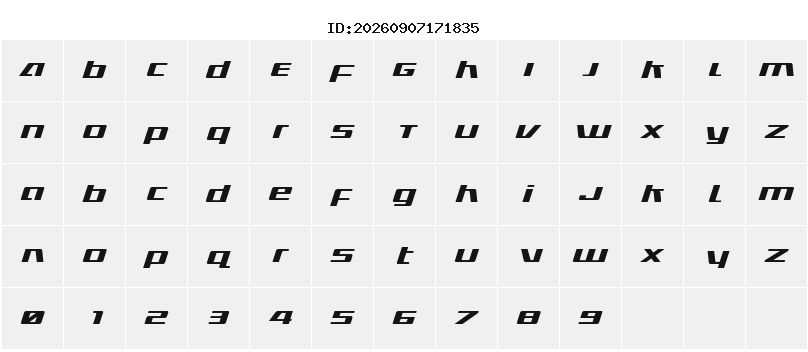
Ultramarines Expanded Italic Preview
• Font Name: Ultramarines Expanded Italic
• Font Style: Expanded Italic
• Full Font Name: Ultramarines Expanded Italic
About Ultramarines Expanded Italic.ttf
Ultramarines Expanded Italic.ttf is a modern, elegant sans-serif font designed for ultimate readability and visual harmony. Perfect for branding, headlines, web design, and print materials.